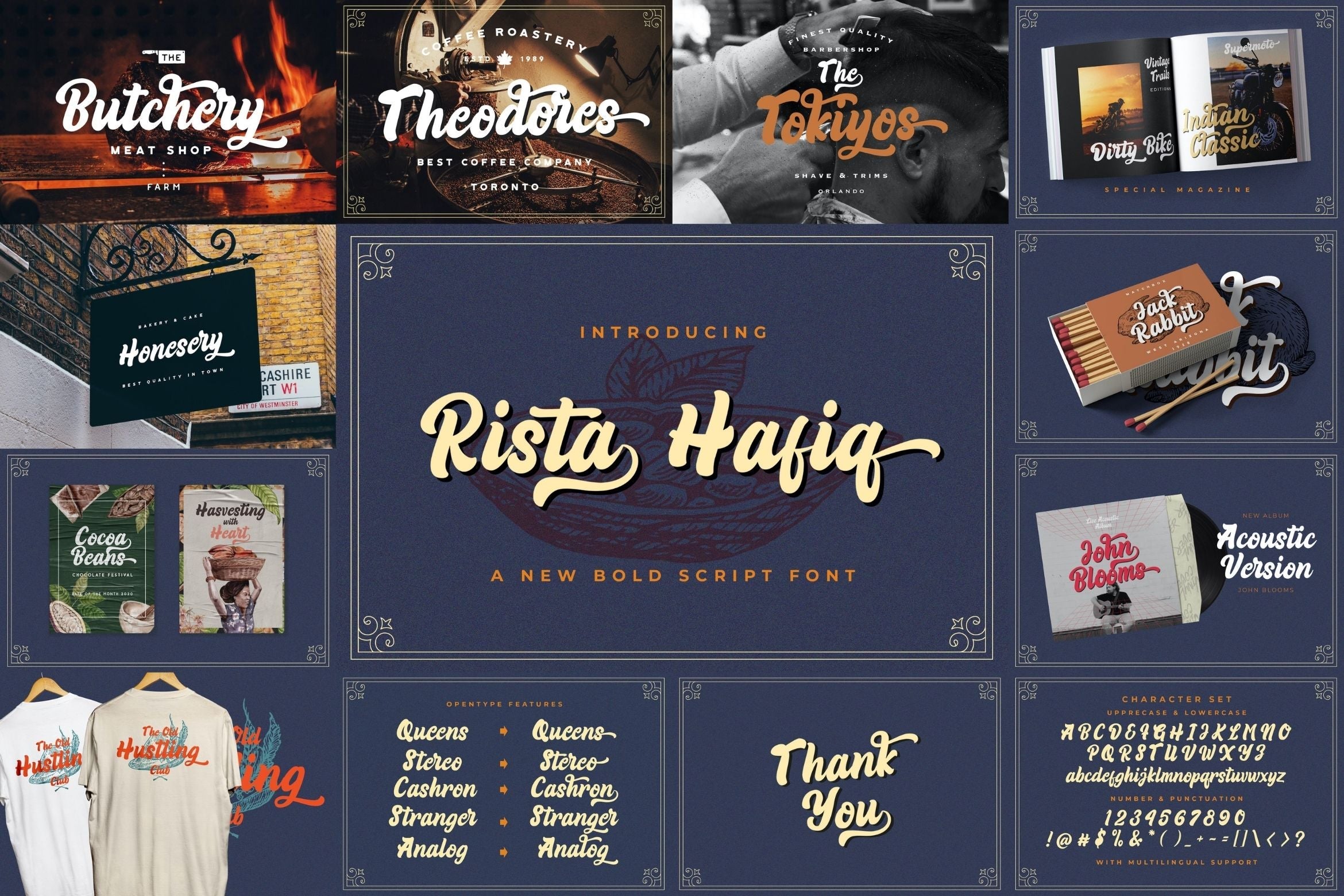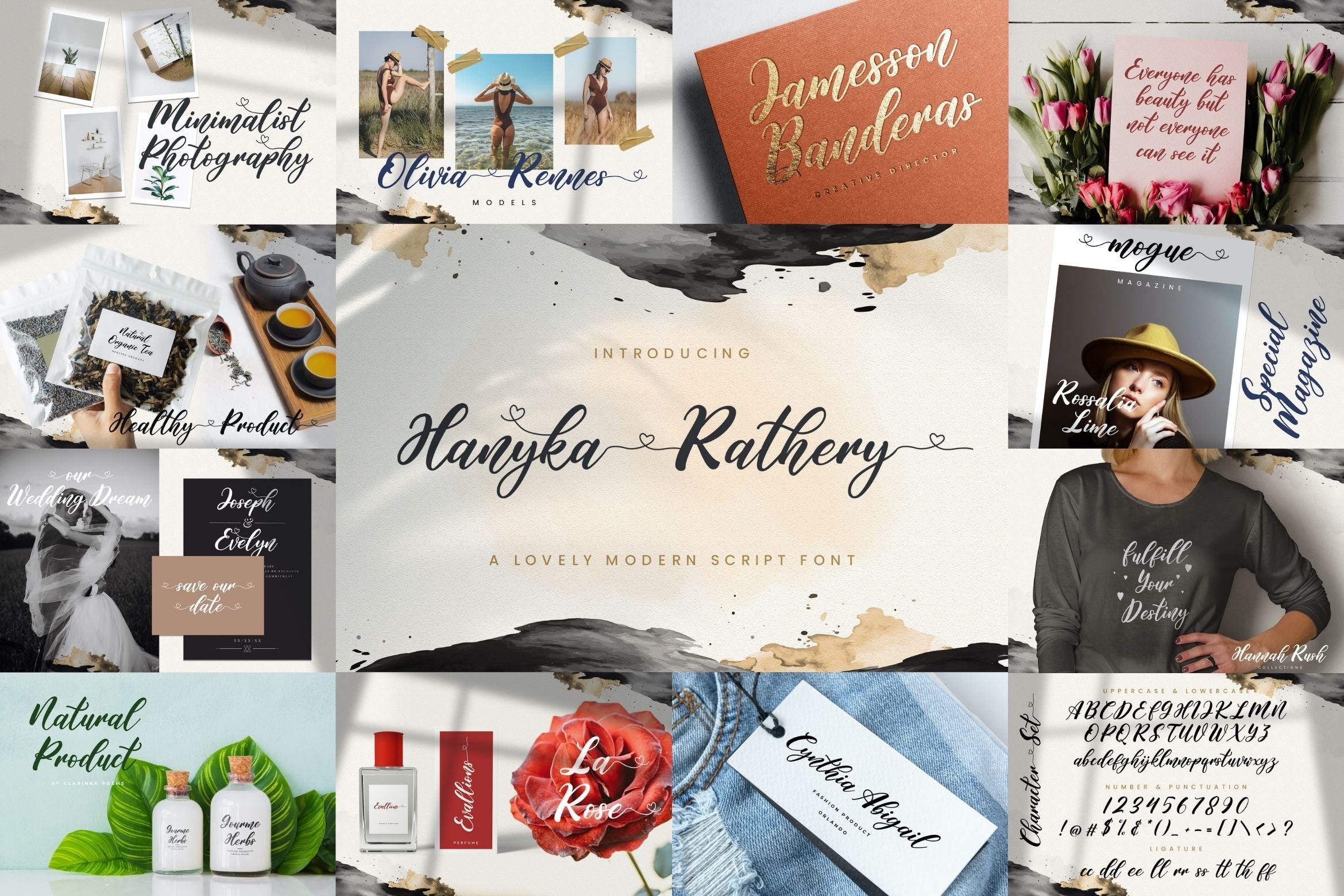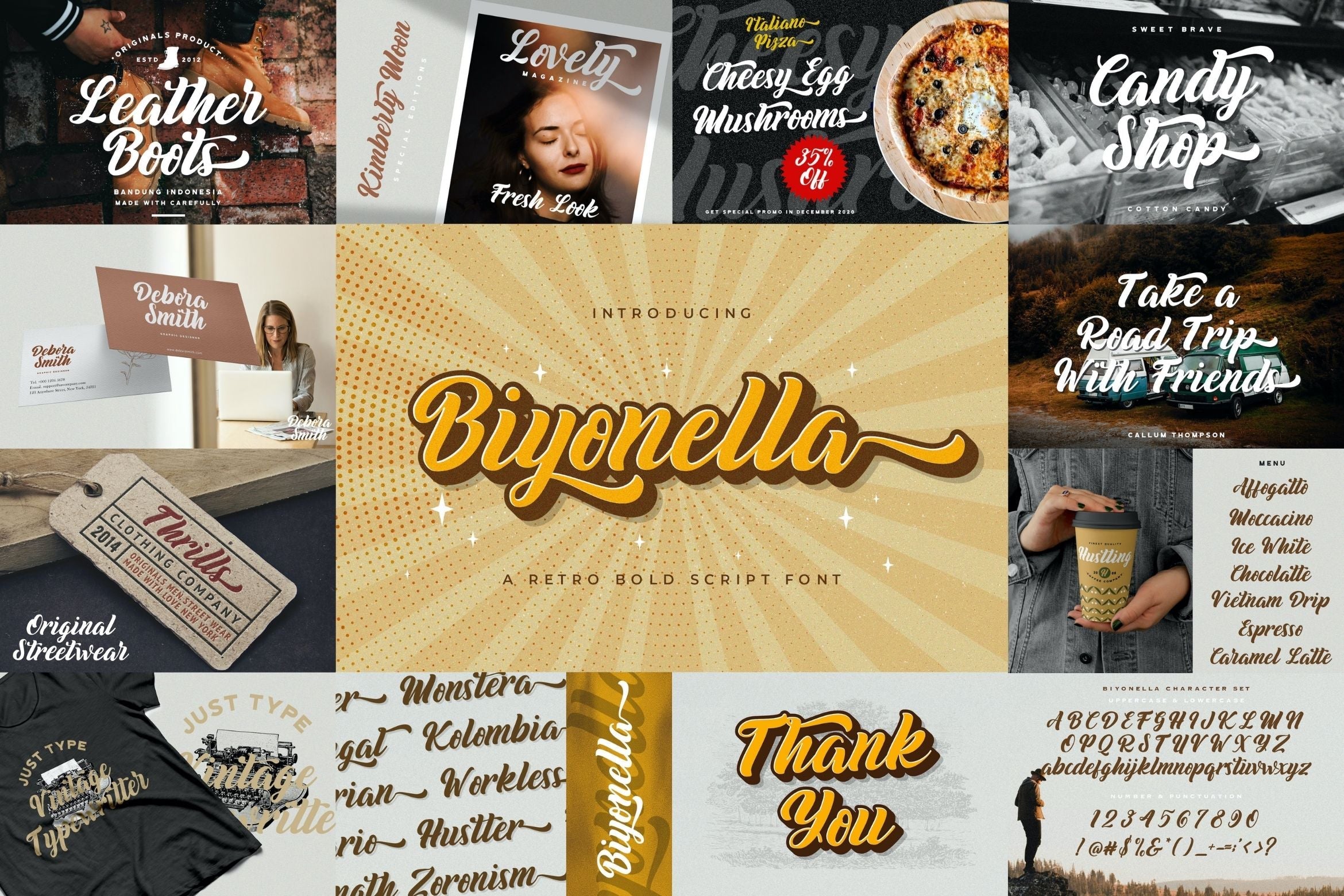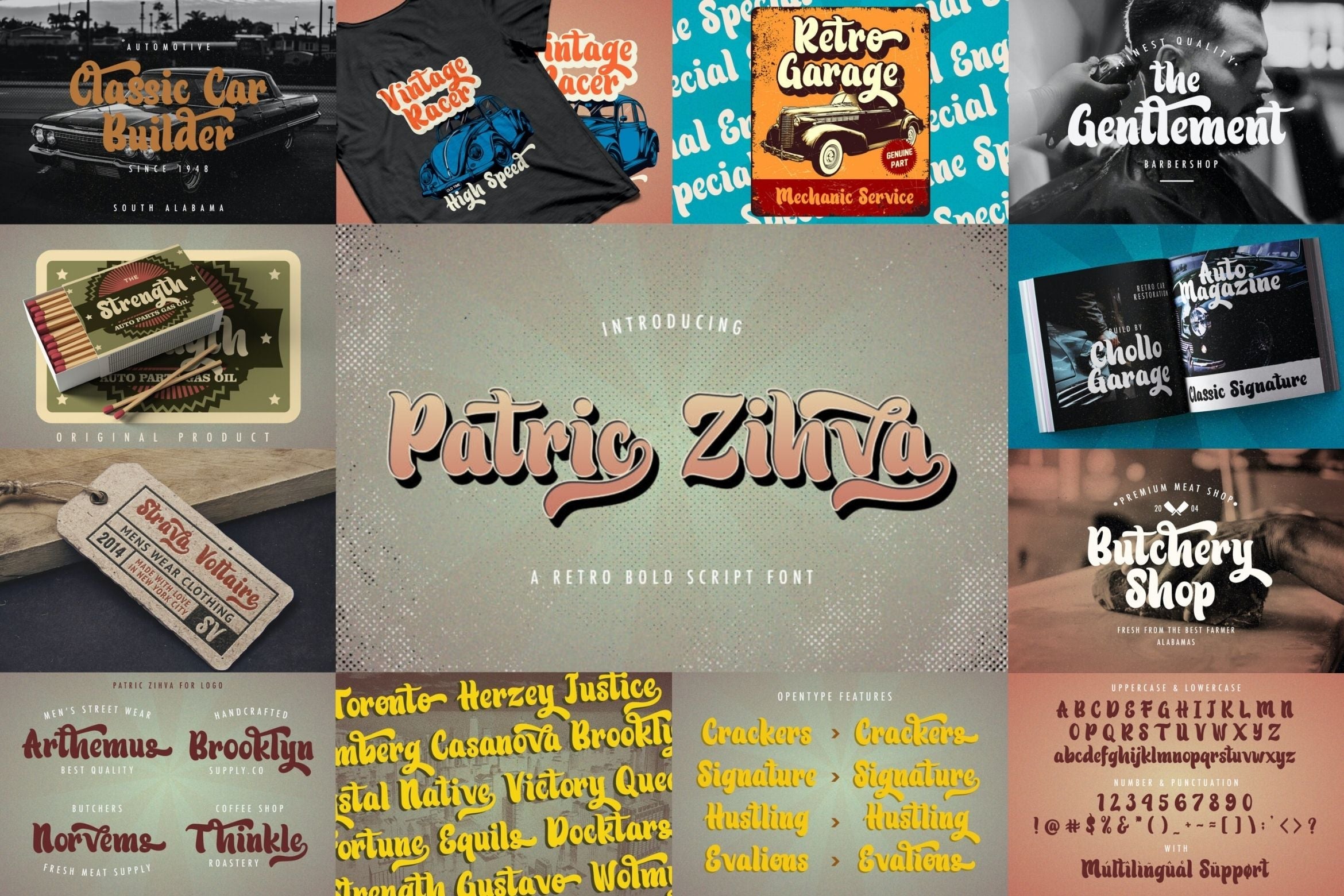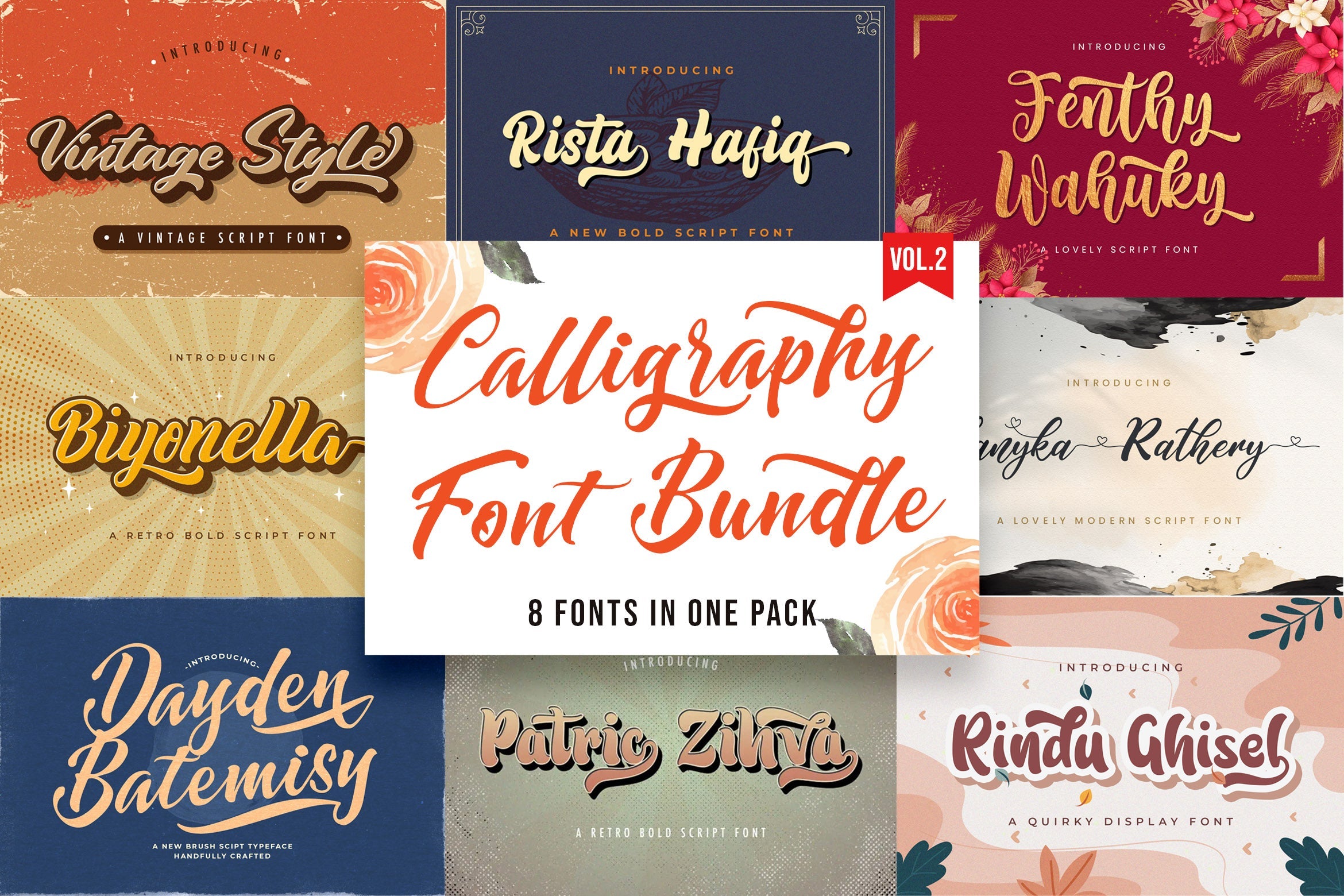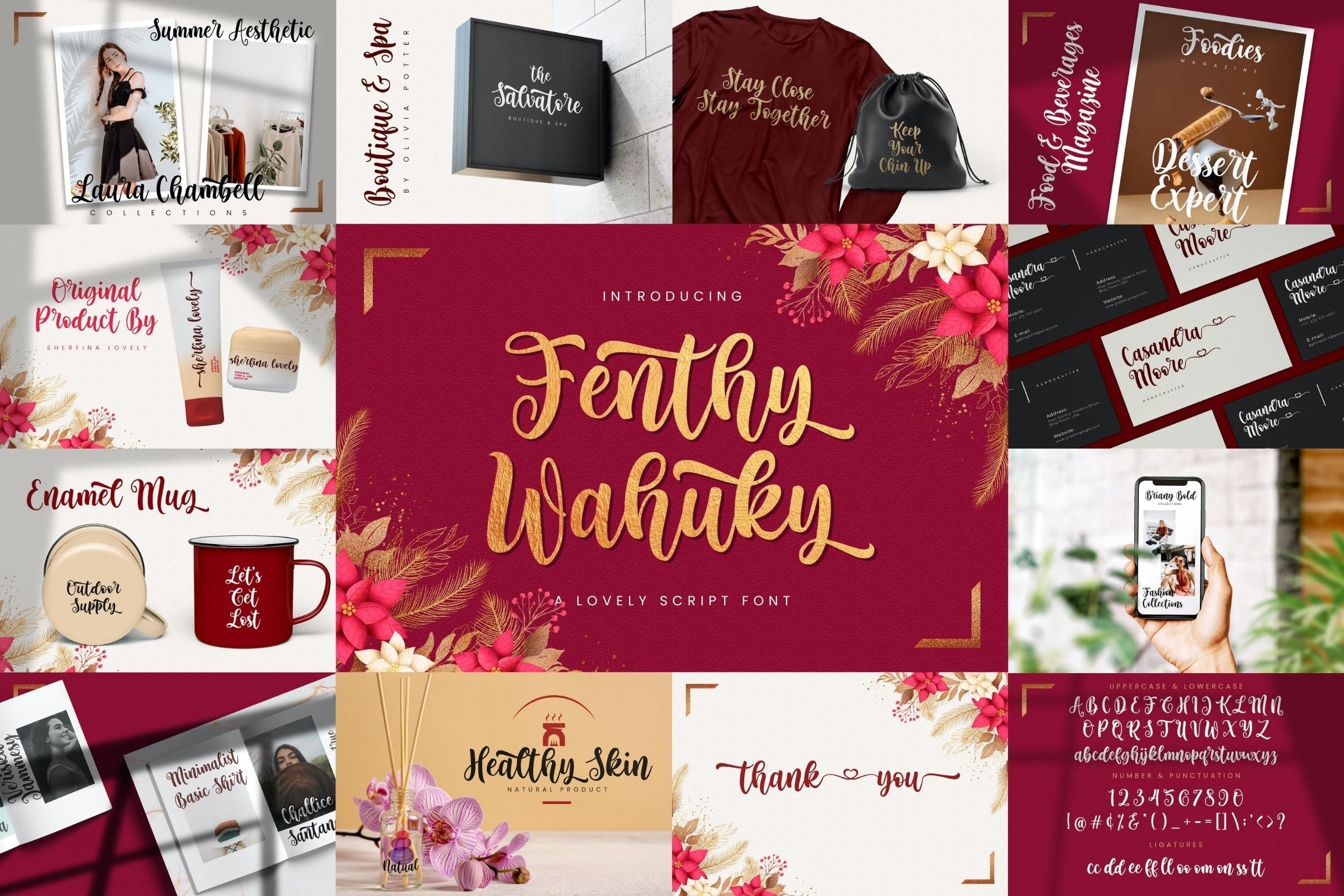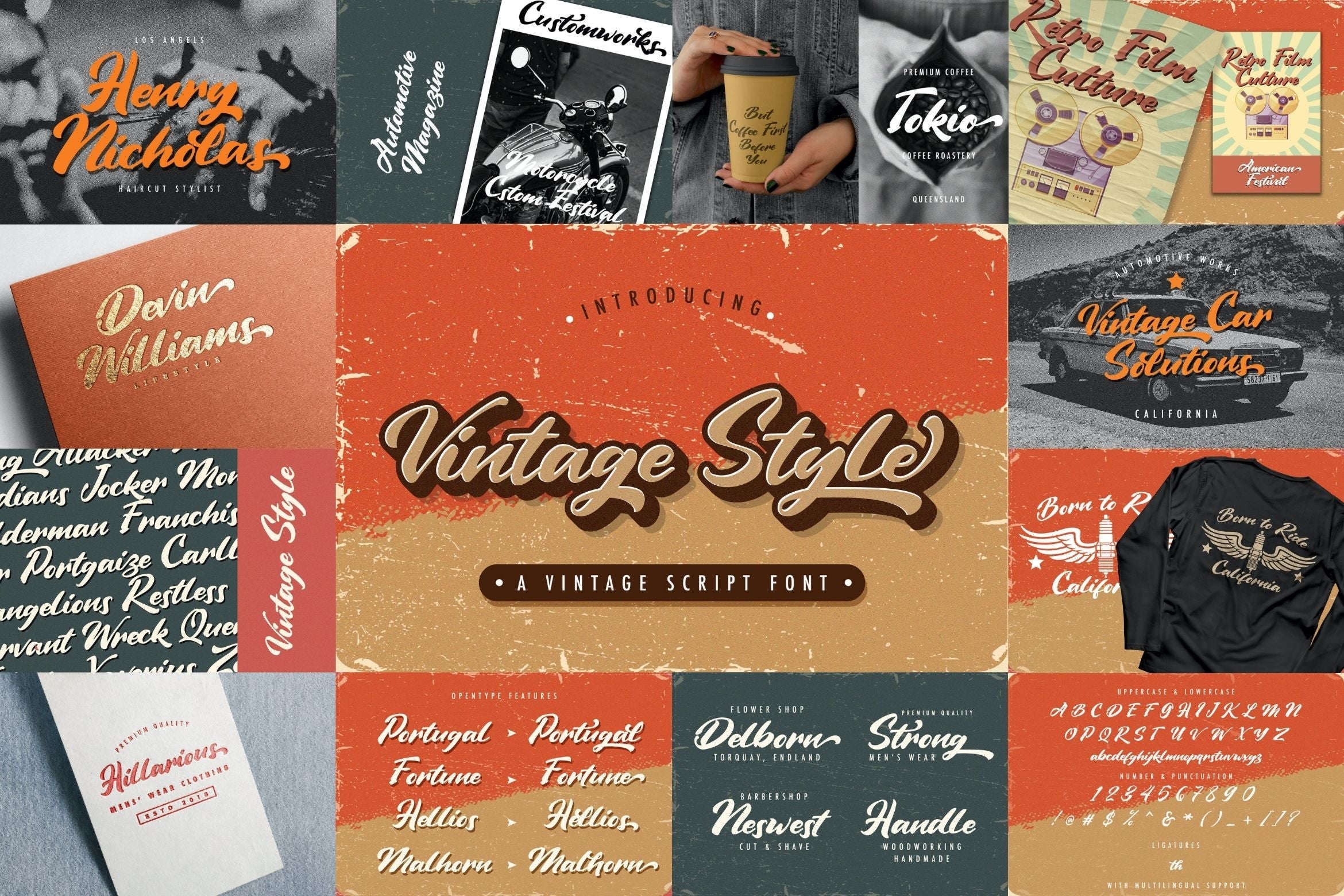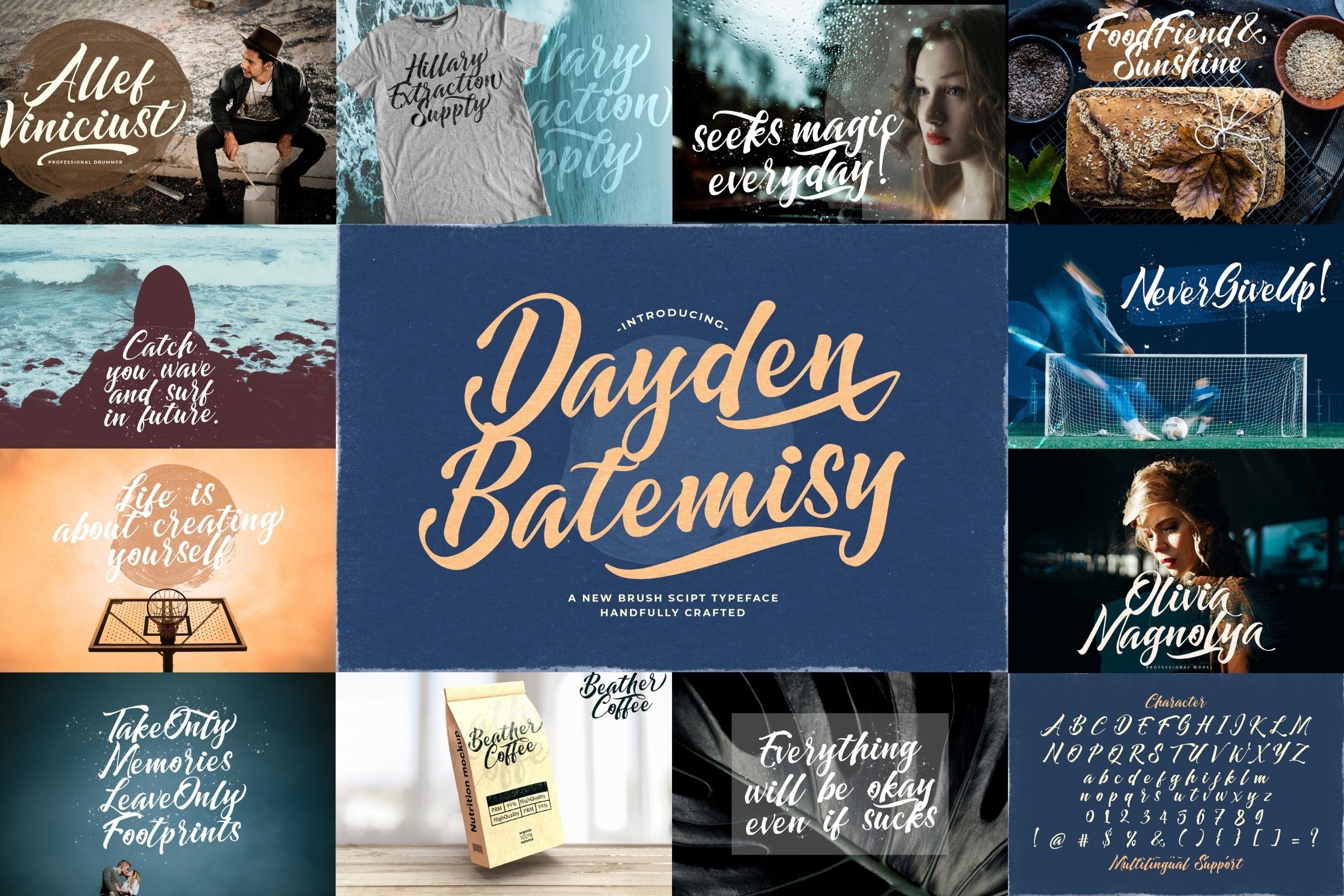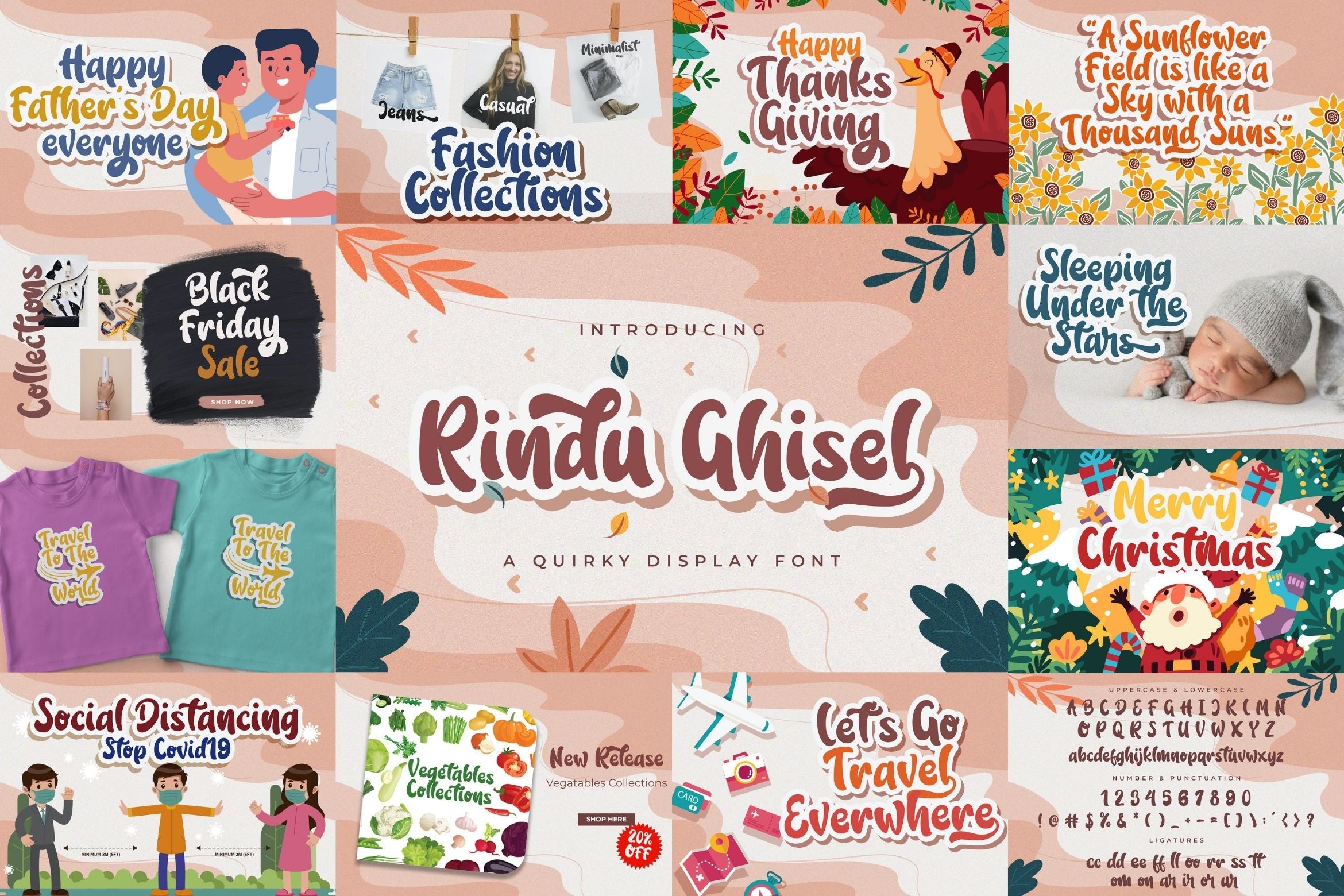
Calligraphy Font Bundle Vol 2
About Calligraphy Font Bundle Vol 2
Calligraphy Font Bundle Vol 2 is a delicate, elegant and flowing calligraphy font. This font bundle contains 8 high quality handwritting calligraphy script font, it will look simply magical in a wide range of design projects, and also that will look particularly adept when used in logos, branding, packaging design, and much more. It has beautiful and well balanced characters and as a result, it matches a wide pool of designs. Add it to your most creative ideas and notice how it makes them come alive! FONTS INCLUDED : 1. Vintage Style 2. Hanyka Rathery 3. Fenthy Wahuky 4. Rista Hafiq 5. Patric Zihva 6. Biyonella 7. Dayden Batemisy 8. Rindu Ghisel Fonts available in format : OTF, TTF, WOFF, WOFF2